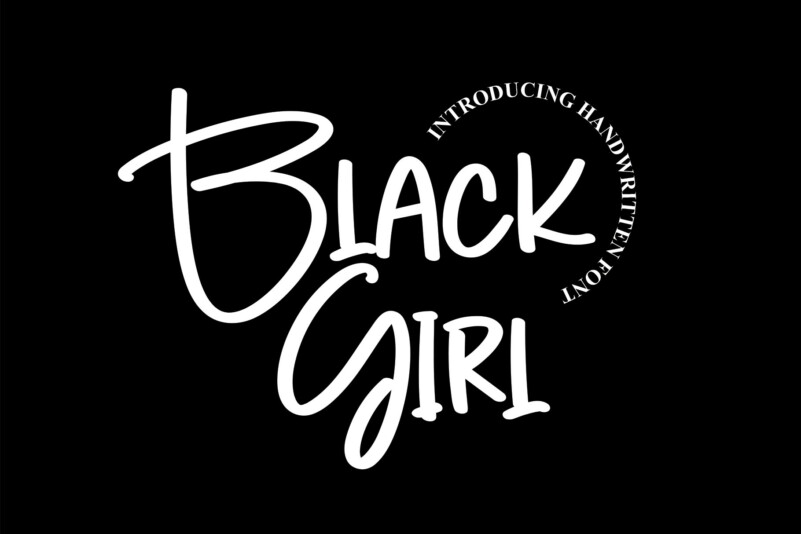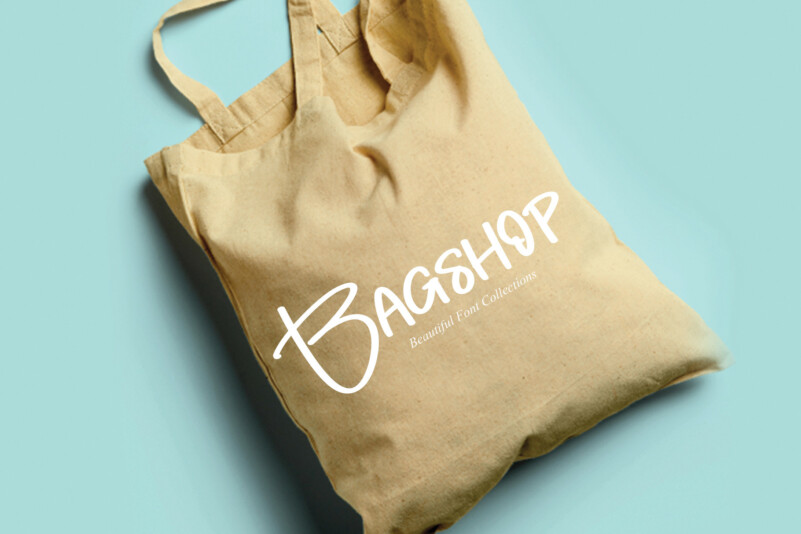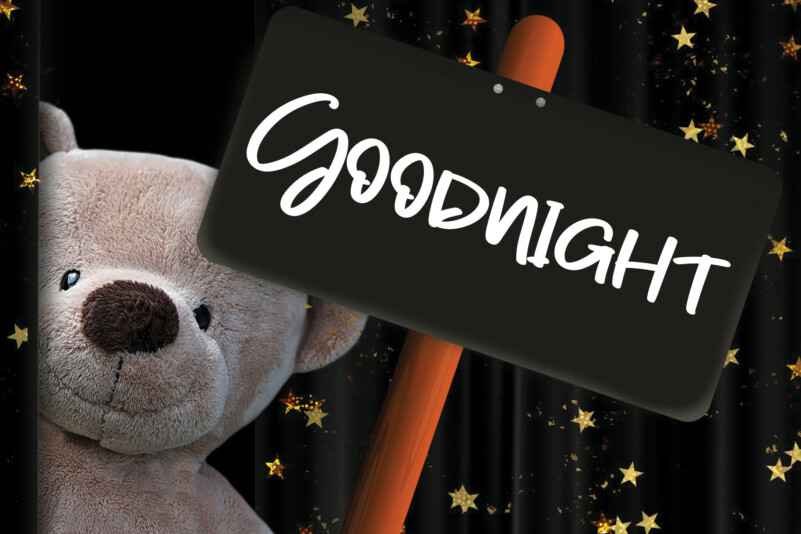
Black Girl Script Font
Black Girl Script Font is a whimsical and clean handwritten font. It can easily be matched to an incredibly large set of projects, so add it to your creative ideas and notice how it makes them stand out!